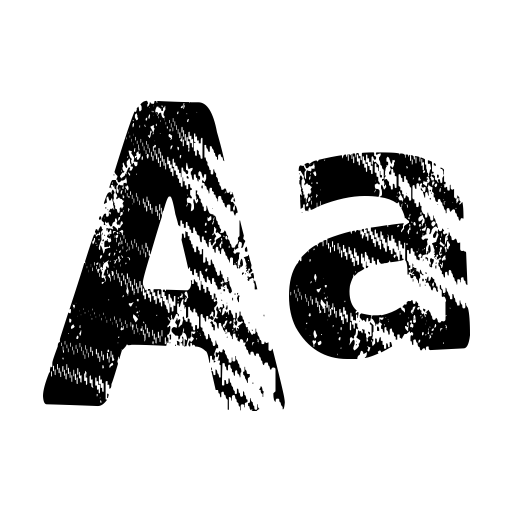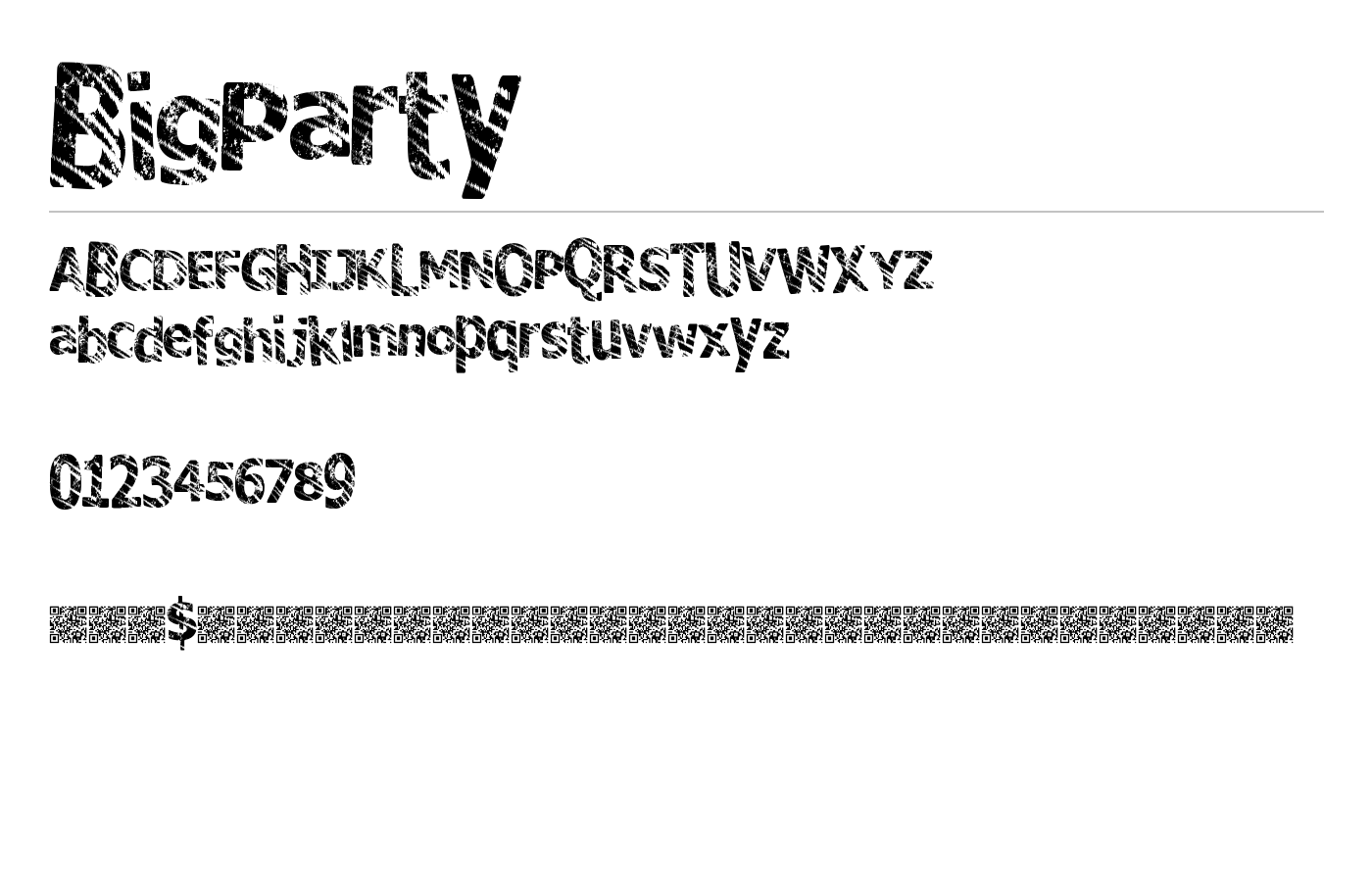
BigParty Font is a bold, playful sans serif with a distressed, textured look that gives it an energetic and informal vibe. Its heavy weight and quirky letterforms make it perfect for fun, casual designs such as party invitations, posters, or trendy branding that seeks to stand out with a lively, hand-crafted feel. This font works best in display uses where its unique, rough style can add personality and eye-catching appeal.
BigParty Font
About BigParty Font